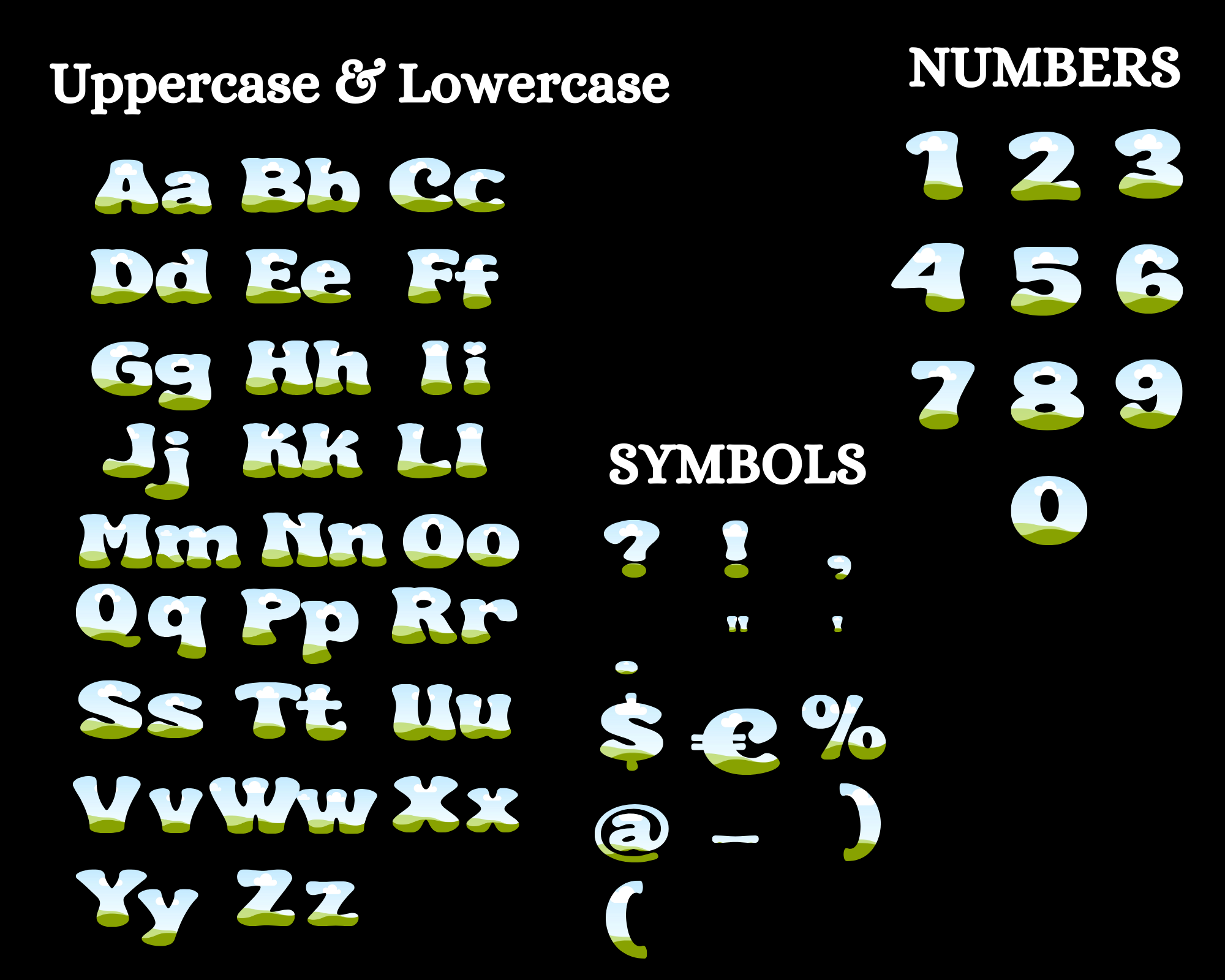
Cute Doodle Alphabet Letters Font, Canva, Girl Font, Bold Large Font, Uppercase, Lowercase, Heart Font, Bubble Letters, Frame Custom Letters
Cute Doodle Alphabet Letters Font, Girly Doodle Letters, Edit these Alphabet Canva Frames with a FREE Canva account. Drag and drop your images.
A-Z, Numbers, Symbols Cute Doodle Alphabet Letters Font, Canva, Girl Font, Bold Large Font, Uppercase, Lowercase, Heart Font, Bubble Letters, Frame Custom Letters
Meet these Cute Doodle Alphabet Letters Font – a fun and playful way to add charm to your designs! This Canva-compatible letters come with uppercase and lowercase letters, making it perfect for various projects. These Girly Doodle Letters will add a sweet touch to your designs. Customize each letter with images for a personal touch. Ideal for girly projects, this font is all about adding cuteness and creativity effortlessly!
✨Create your own unique letters using these Customizable Letters.
– Uppercase & Lowercase, A to Z Letters, Numbers & Symbols Frames Templates, customizable with a FREE Canva Account.
+ Possibility to customize a Letter Outline